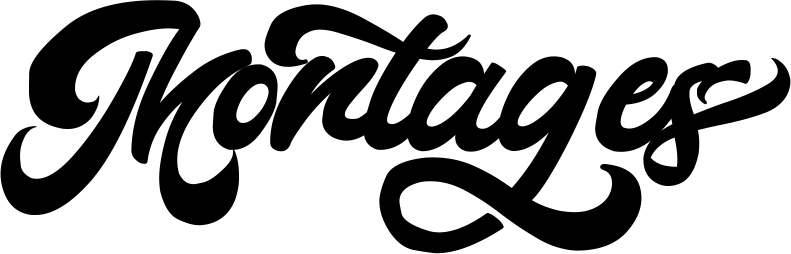
Montages Font
If you’re into classic styles, you can easily bring it to your layouts with an old-school font and make an inspiring layout. Montages font is truly perfect for apparel products, stickers, titles, and more of the same. It’s coming in an illegible style. Download it now and if you crave to get more, head over to RB.